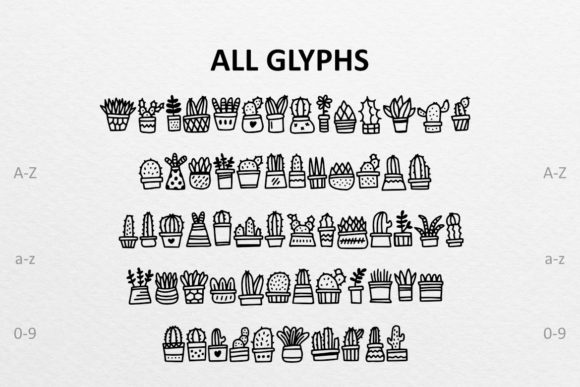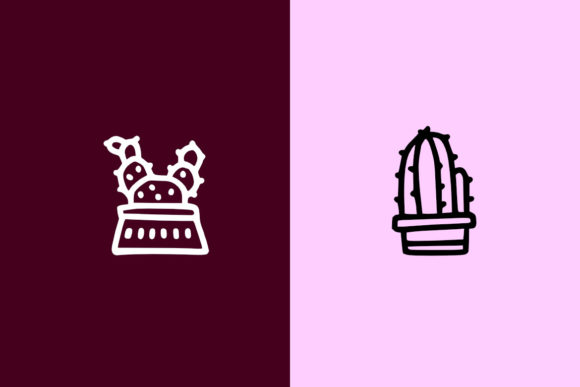
Getting Inspired in the Desert
As a designer, have you ever found yourself stuck in a creative rut, yearning for a spark of inspiration to ignite your next project? For me, it was a lazy Sunday afternoon spent browsing through vintage southwestern decor that sparked the idea for this article. The intricate patterns and bold lines of cacti-inspired designs had me hooked. I knew right then that I wanted to explore the world of fonts that capture the essence of the desert landscape.
Enter the Cactusy Doodle Font, a delightful dingbats font designed specifically for creating logos, ornaments, and decorating projects with a southwestern twist. This charming font is perfect for adding a touch of whimsy and personality to your designs, making it a valuable addition to any designer’s toolkit.
Cactusy Doodle Font Key Features
- Unique Characteristics: Hand-drawn, cactus-inspired illustrations and doodles for a whimsical feel
Cactusy Doodle Font Review
At first glance, I was immediately drawn to the quirky charm of the Cactusy Doodle Font. ✨ The font’s playful, hand-drawn aesthetic is perfect for adding a touch of whimsy to designs. It’s great for creating eye-catching titles, headings, and even social media graphics.
Some of the font’s strengths include:
- Highly customizable: The Cactusy Doodle Font comes with a wide range of glyphs and ligatures, making it easy to adjust the font to fit your design needs.
- Perfect for hand-drawn feel: The font’s imperfections and irregularities give it a unique, hand-drawn look that’s perfect for creating a DIY or vintage vibe.
- Works well in bold and italic: The font’s bold and italic styles are well-executed, adding to the overall charm of the design.
- May not be suitable for body text: Due to its playful, handwritten style, the Cactusy Doodle Font may not be the best choice for body text or large blocks of text.
- May require additional styling: Depending on the design, you may need to add additional styling or effects to the font to make it stand out.
Overall, I think the Cactusy Doodle Font is a great addition to any designer’s toolkit. While it may have some limitations, its unique charm and versatility make it a great choice for designers looking to add a touch of whimsy to their designs.
Getting the Most Out of the Cactusy Doodle Font
For the best results, use the Cactusy Doodle Font in conjunction with other whimsical and playful design elements, such as hand-drawn illustrations and watercolor textures.
Experiment with different font sizes, colors, and styles to create a unique and eye-catching design.
The Cactusy Doodle Font is perfect for:
- Children’s book illustrations and design
- Party decorations and signage
- Branding and marketing materials for creative businesses
Alternatives to Cactusy Doodle Font
Pacifico is a beautiful, elegant script font that works well for designs that require a touch of sophistication and whimsy. It’s perfect for wedding invitations, branding, and advertising campaigns.
Compared to Cactusy Doodle Font, Pacifico has a more refined and classic feel. While Cactusy Doodle Font is playful and quirky, Pacifico is more understated and sophisticated.
Great Vibes is a fun, cursive font that’s ideal for designs that require a carefree and energetic vibe. It’s perfect for social media graphics, posters, and event invitations.
Compared to Cactusy Doodle Font, Great Vibes has a more relaxed and casual feel. While Cactusy Doodle Font is playful and quirky, Great Vibes is more laid-back and fun-loving.
Carolyna Pro is a modern, elegant script font that works well for designs that require a touch of sophistication and glamour. It’s perfect for luxury branding, high-end advertising, and special occasion invitations.
Compared to Cactusy Doodle Font, Carolyna Pro has a more refined and luxurious feel. While Cactusy Doodle Font is playful and quirky, Carolyna Pro is more elegant and sophisticated.